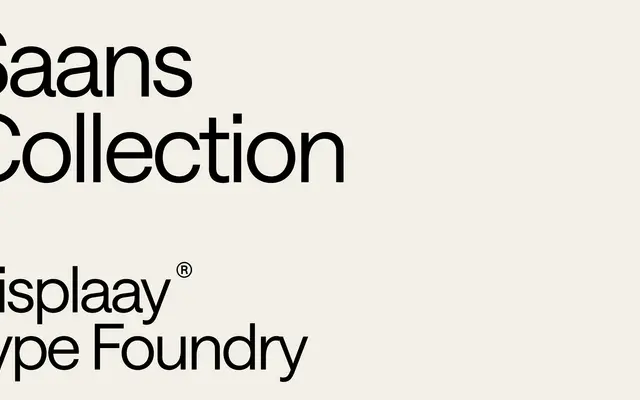
A three-family grotesque collection spanning proportional, semi-mono and mono cuts, built around deliberate neutrality and a variable font axis covering weight, slant and mono.
The Saans collection comprises 36 styles across three related families: the proportional Saans, the transitional Saans SemiMono and the fully spaced Saans Mono. All three share six weights from Light to Heavy with matching italics, and the variable font exposes weight, slant and mono axes for fluid interpolation across the range. The foundry's framing leans heavily on intentional genericness, positioning the typeface as a Swiss-inflected default for UI and editorial contexts where invisibility is the goal.
The foundry positions Saans explicitly as neutral and universal, with descriptors like 'Average, Basic, Common, Default, Grotesk' pointing firmly to the grotesque sans-serif tradition. The collection spans proportional, semi-mono and mono subfamilies.